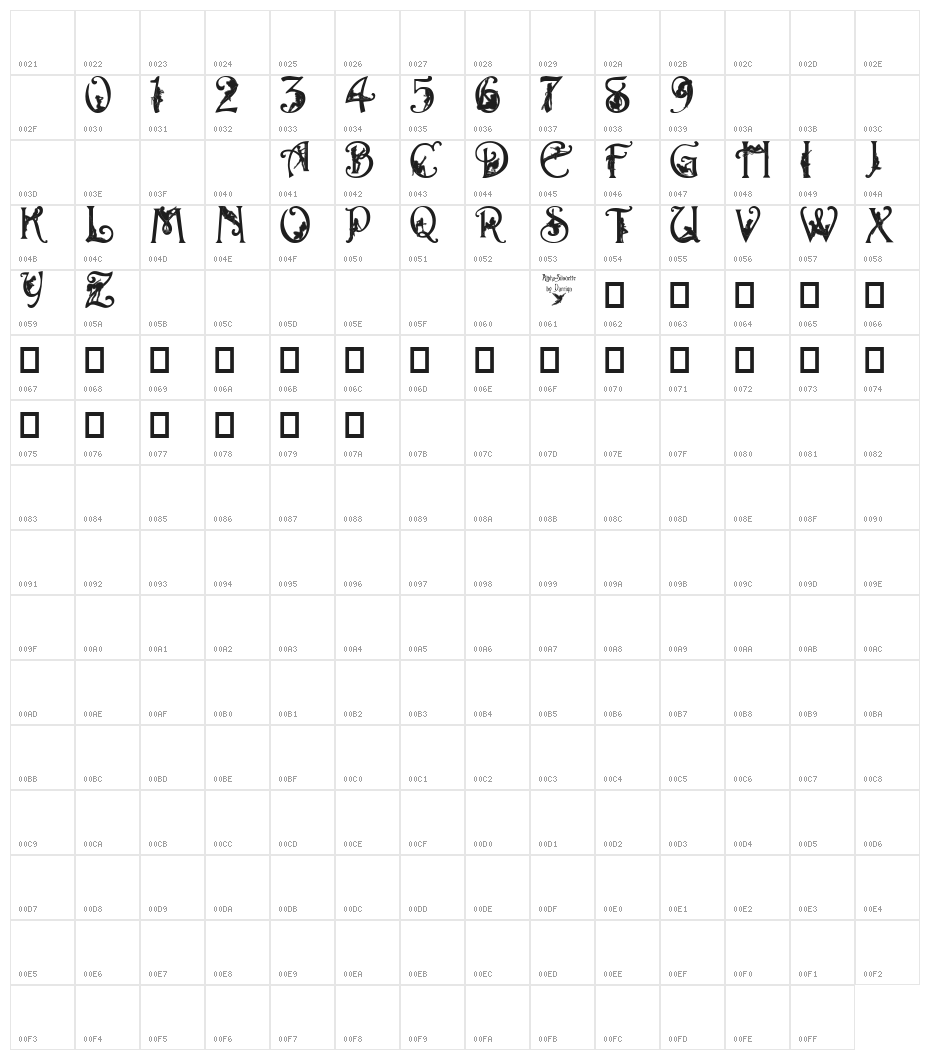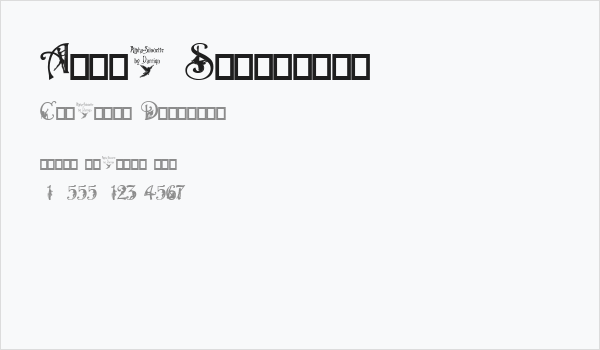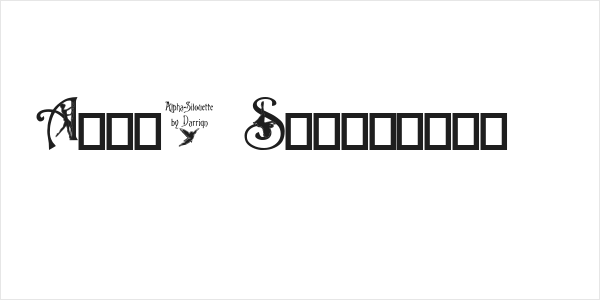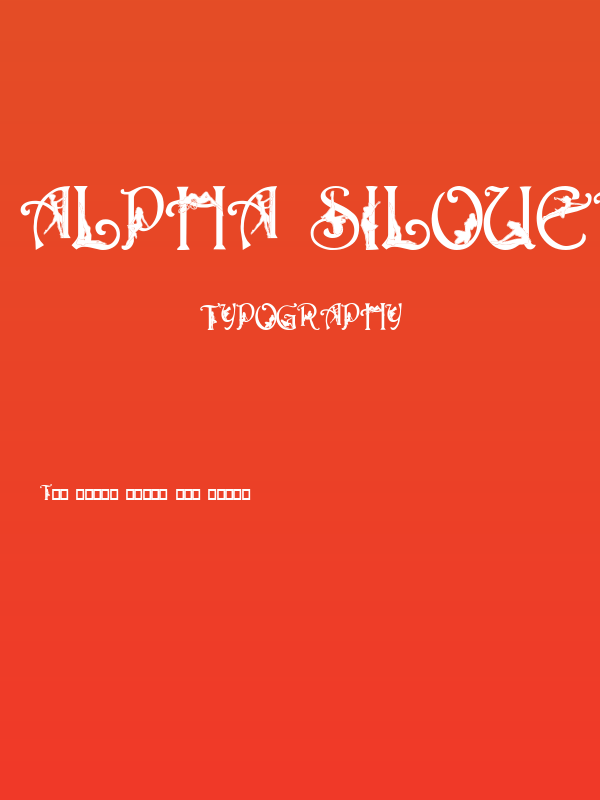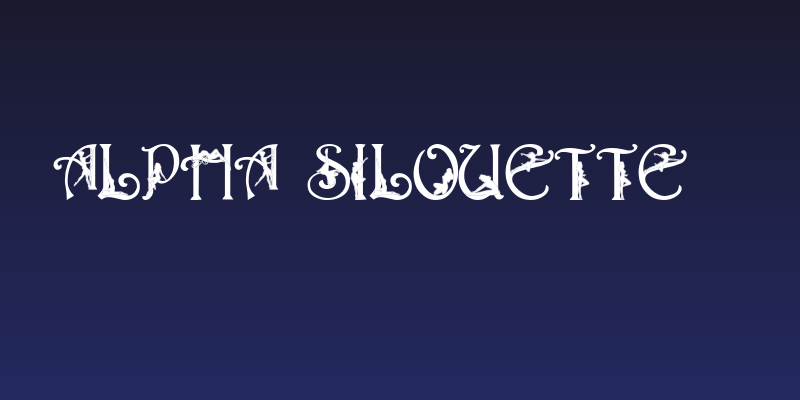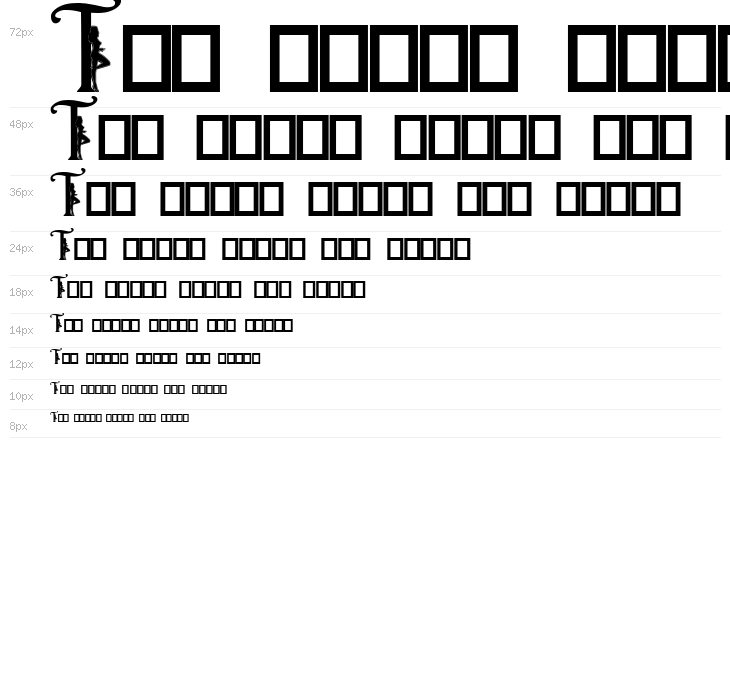
Alpha-Silouette Font
Alpha-Silouette Description
This font is a decorative and artistic typeface that incorporates intricate silhouettes within each character. The uppercase letters are adorned with detailed, whimsical designs that resemble fairy-tale or fantasy themes, adding a unique visual element to the text. The numbers also feature similar embellishments, creating a cohesive and imaginative style. The font's overall appearance is highly stylized, making it suitable for creative and themed projects. Its elaborate design elements make it stand out, offering a distinct and memorable aesthetic.
| Proposed Projects | Ideal for fantasy-themed posters, book covers, greeting cards, and artistic projects requiring a whimsical touch. |